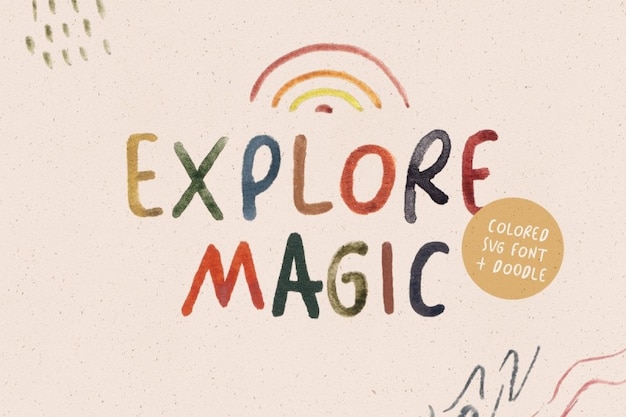
Explore Magic Font
Letterhend
Exploring Magic is a font that captivates us just with the name! But what's behind it? Even more dreamy things! This typeface features SVG and solid styles, and also a doodle font with adorable symbols and drawings! Share and put this design in t-shirts, child books, merchandise. Download and install the font in minutes!